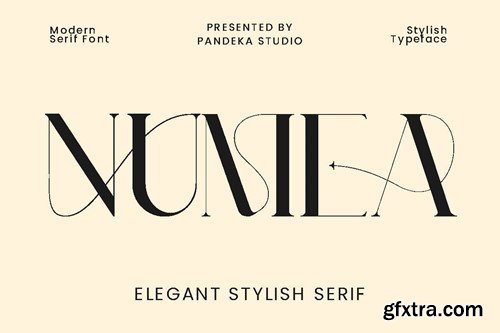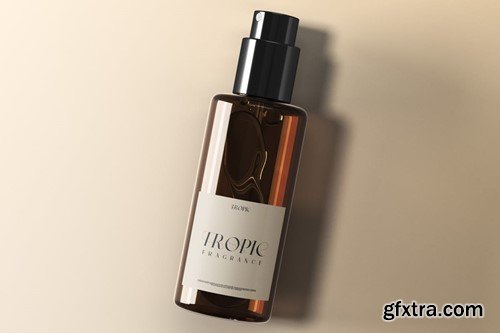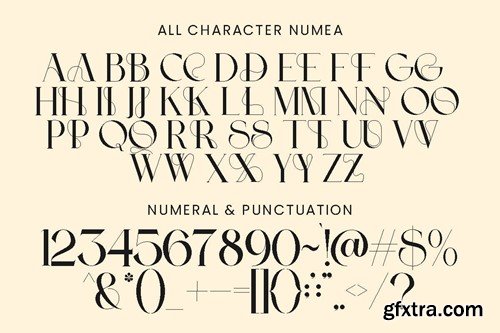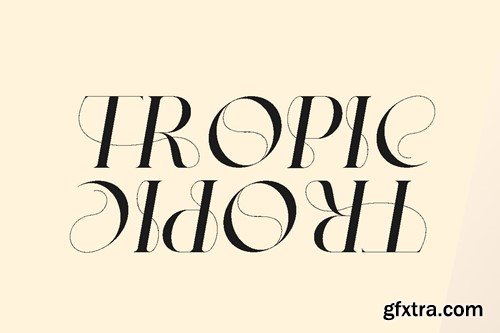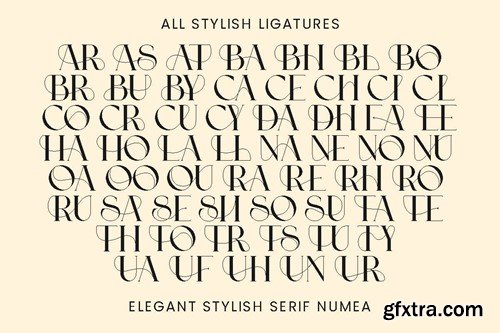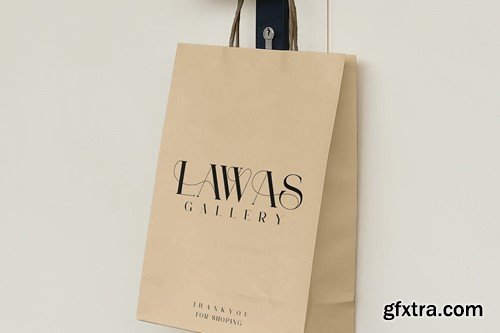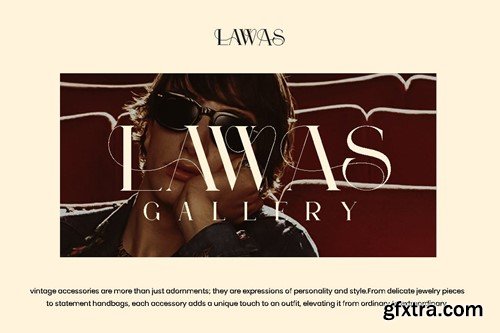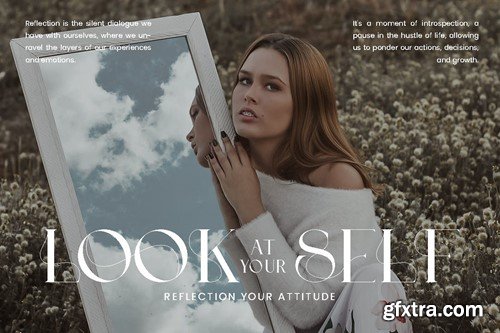
名称 - 美术现代装饰字体 GN5J86D
Numea - Decorative Modern Display Font
Say hello to the new classic nineties retro font, Numea! Numea - A classic nineties retro with a complementary italic version. With this font we make it different from the regular and make a shape with a unique uppercase so it looks more classic, retro but a little modern Included : Language Support: Danish, English, Estonian, Filipino, Finnish, French, Friulian, Galician, German, Gusii, Indonesian, Irish, Italian, Luxembourgish, Norwegian Bokmål, Norwegian Nynorsk, Nyankole, Oromo, Portuguese, Romansh, Rombo, Spanish, Swedish, Swiss-German, Uzbek (Latin) Thanks Pandeka Studio